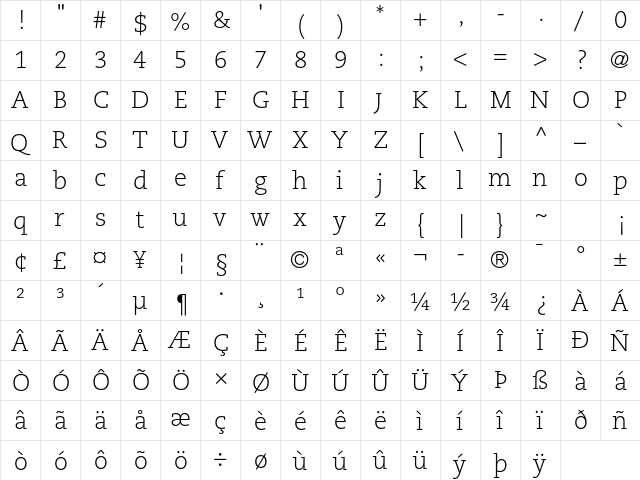
Caecilia LT Std 45 Light
| Designer | Peter Matthias Noordzij |
Design Context for Caecilia LT Std Typeface
Caecilia LT Std takes a measured approach to typography — its balanced proportions and neutral character make it a reliable workhorse for both digital and print work. Its slender proportions lend an understated elegance to any composition.